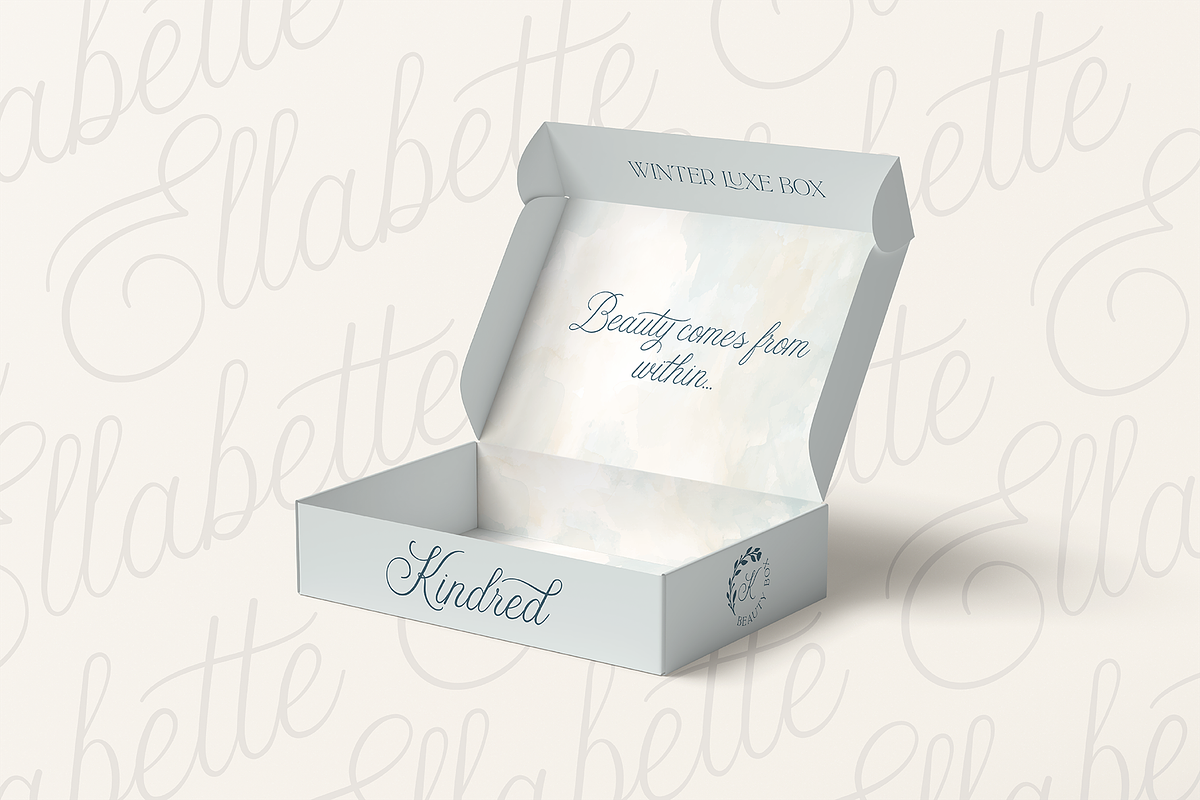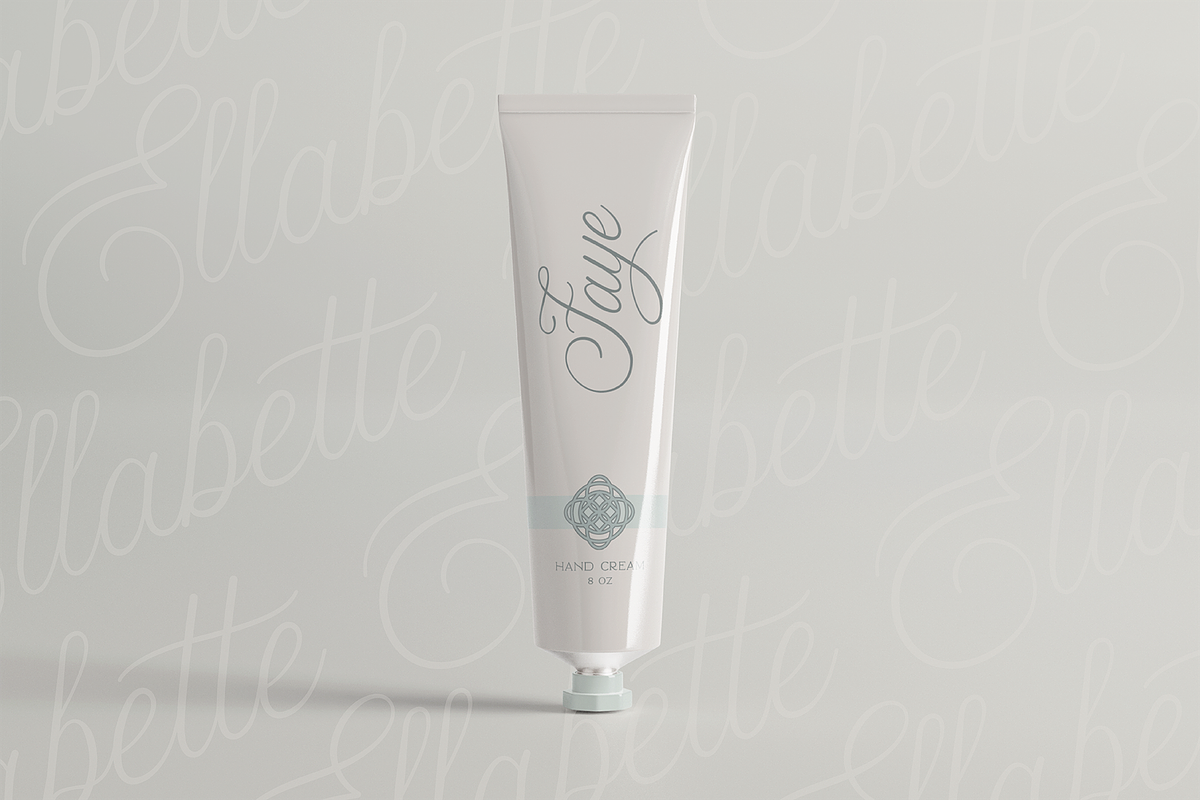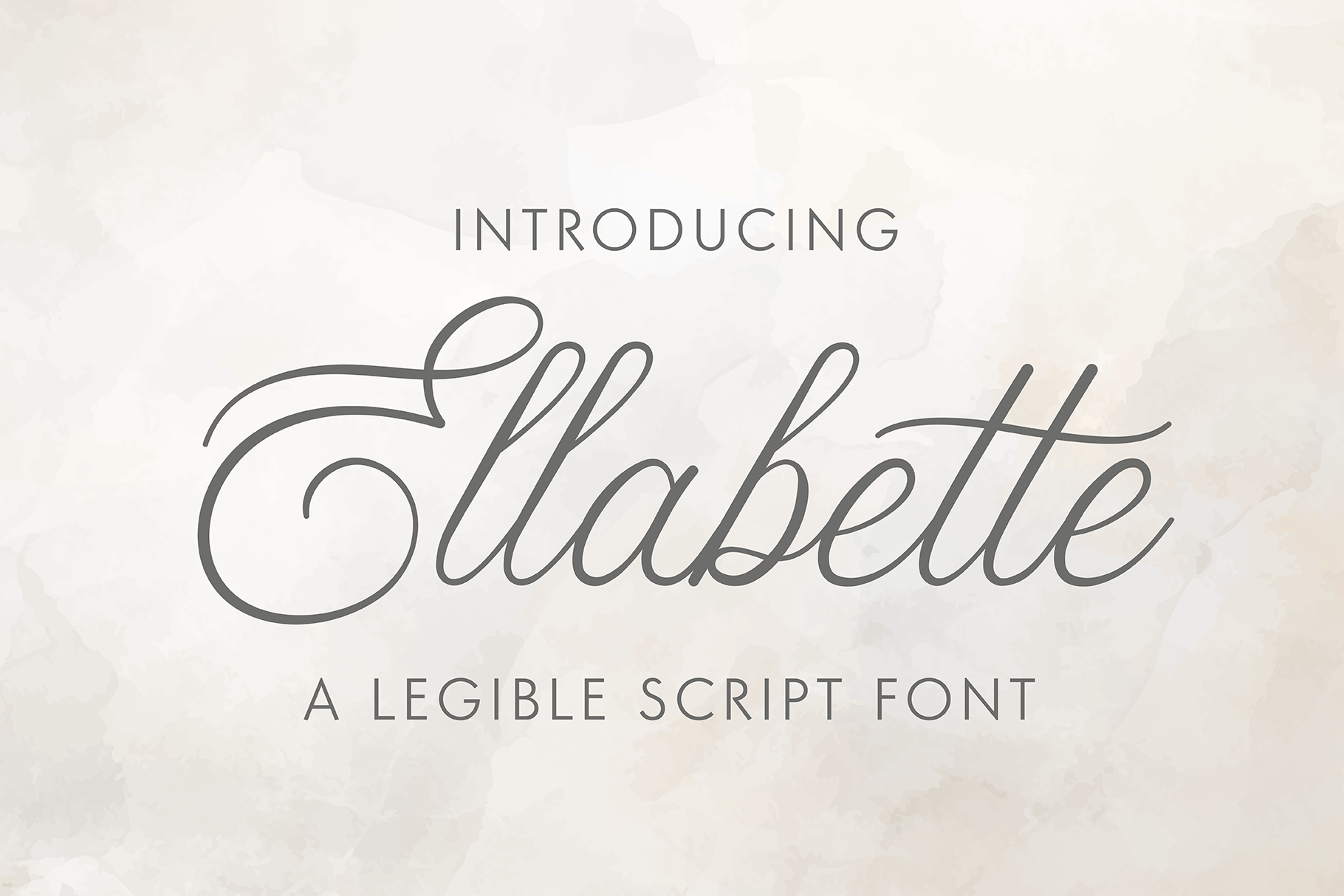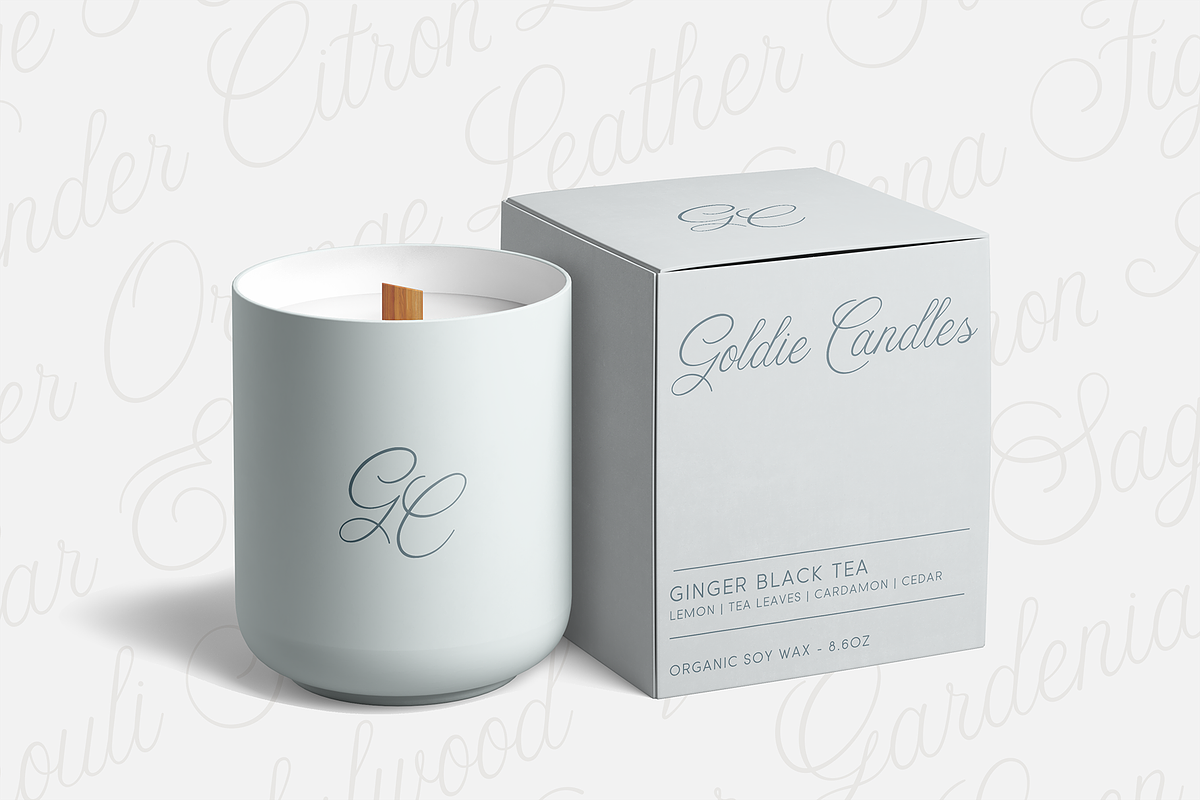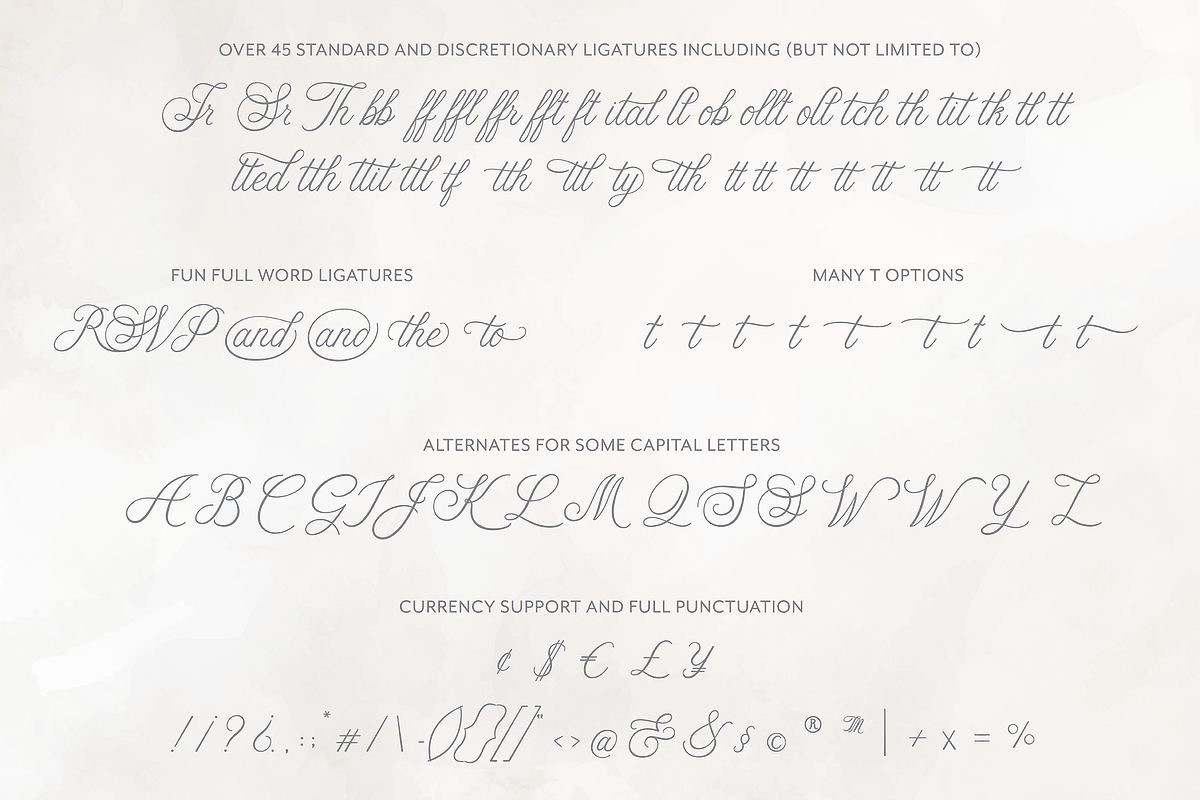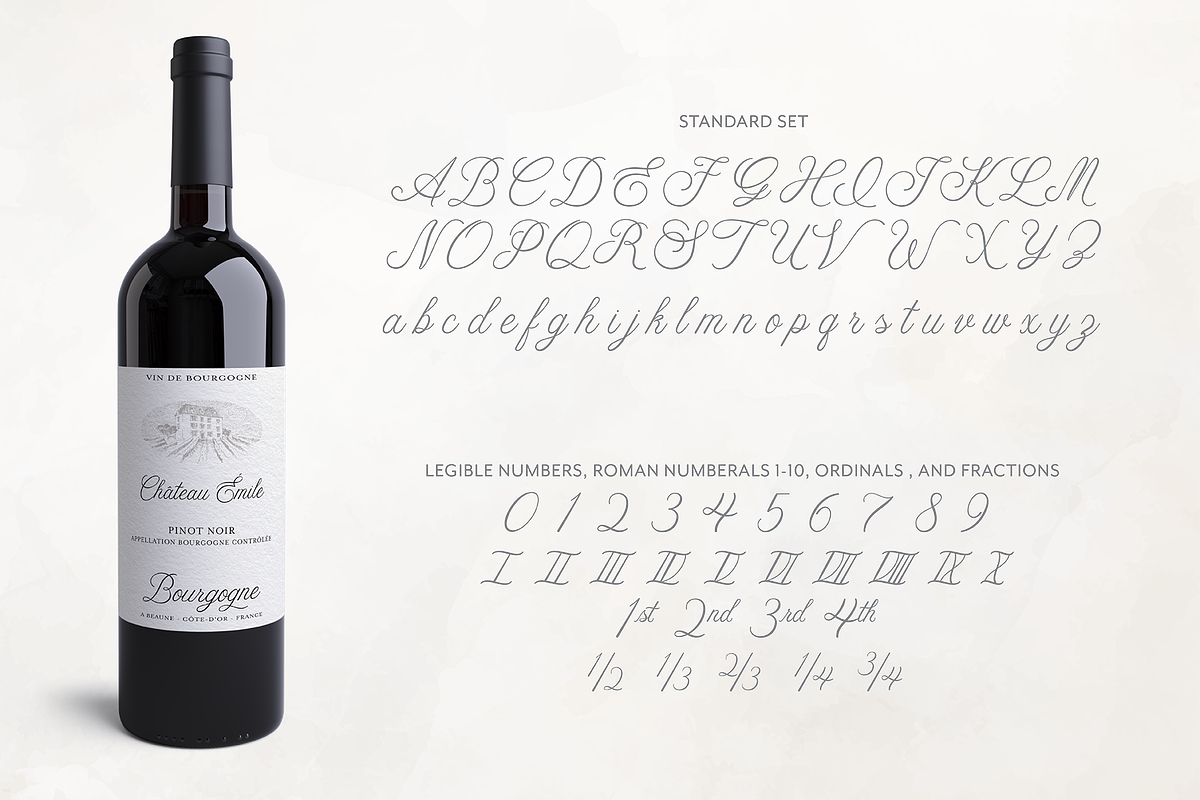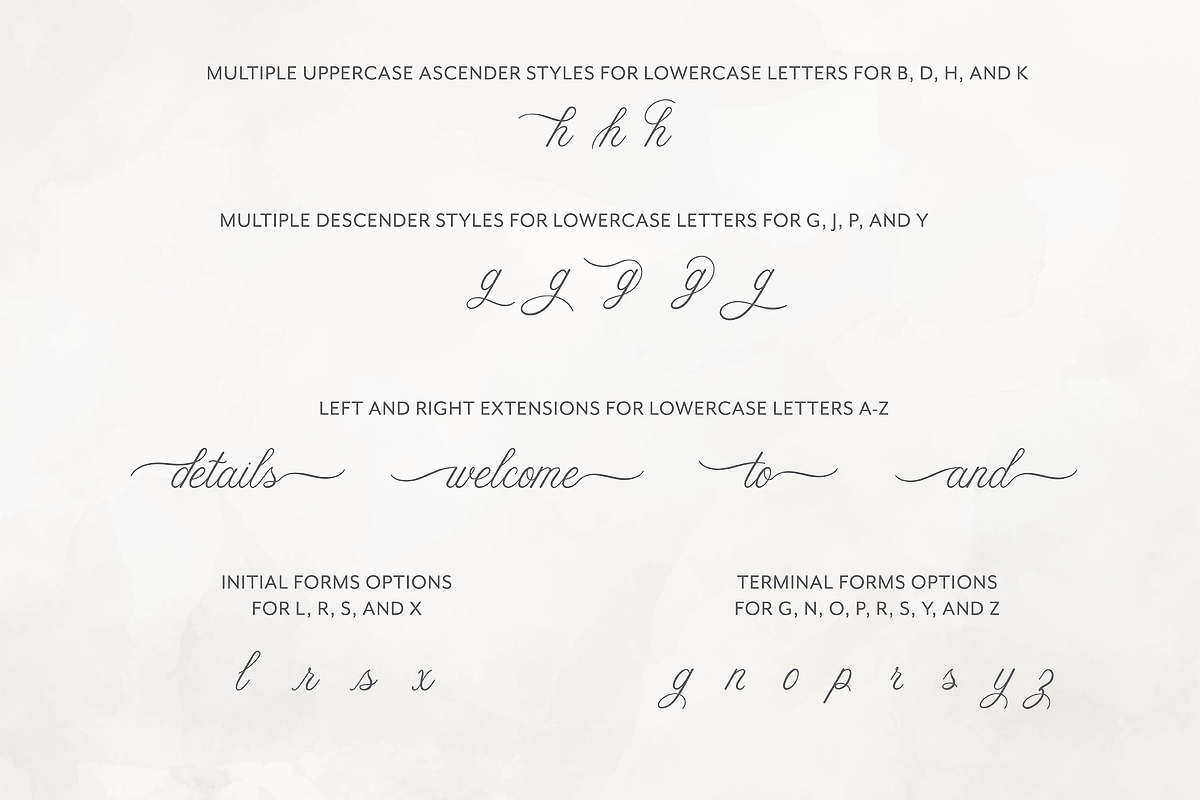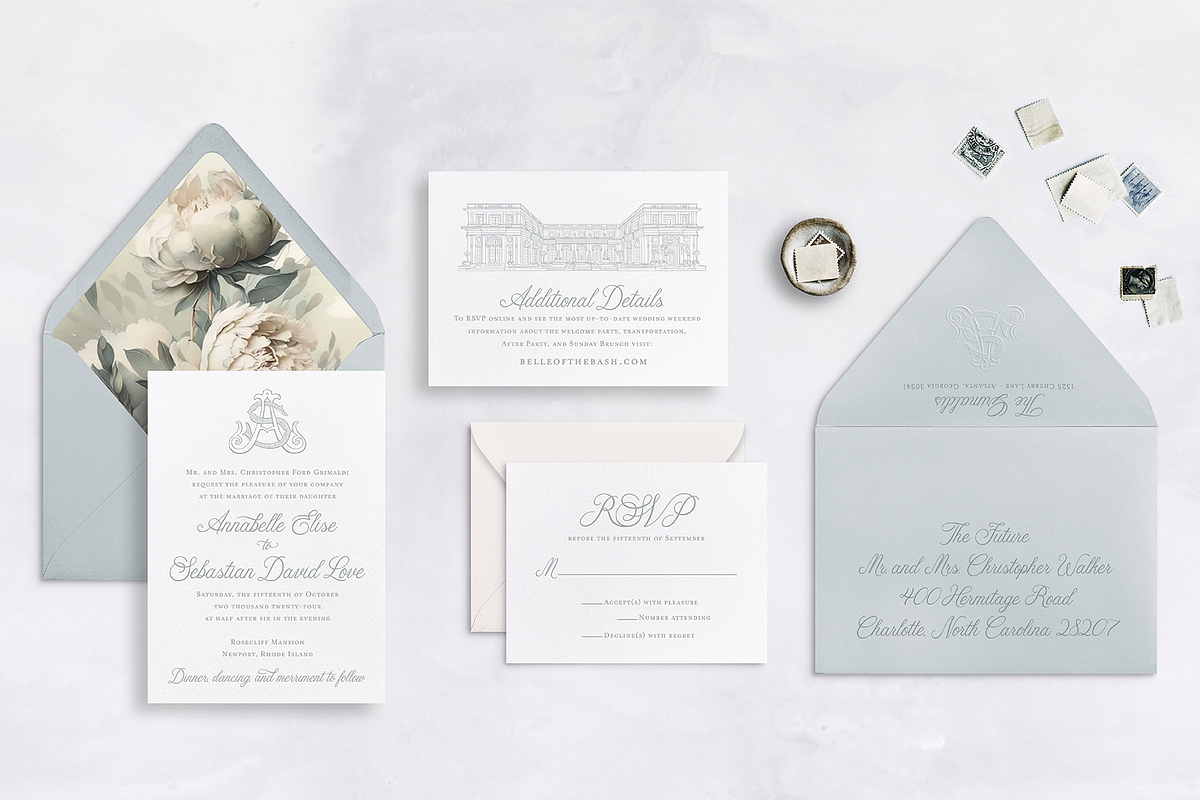
Ellabette Script Font
Ellabette™ is a script font that was created by a wedding stationery designer after working in the industry for over a decade and getting request after request for script fonts that were formal but most importantly, actually legible. Ellabette is warm and inviting, playful but elegant. Perfect for all things weddings, branding, editorial, social, and web.
Designed with weddings in mind with fun special ligatures like "RSVP" "and" and "to" and works beautifully for legible address lists and envelope printing.
Ellabette features over 650 glyphs covering full punctuation, numbers, roman numerals (1-10), fractions, currency support (¢ $ € £ ¥ ), and extensive language support (see list below). Opentype features include contextual and stylistic alternates (45+ standard and discretionary ligatures), many initial and final/terminal glyphs, alternate glyphs for most letters. Opentype features are best accessed in Adobe programs (through the glyphs panels in Illustrator, InDesign, and Photoshop). In Adobe programs, we recommend turning on "Standard Alternates" and "Contextual Alternates" through the OpenType panel for best font performance. To access the opentype features in other programs or text editors, you will need to use Font Book on Macs or Character Map on PCs.
Multilingual support for 90 languages.
Western European, Central European, South Eastern European, South American, Oceanian, and Esperanto Languages